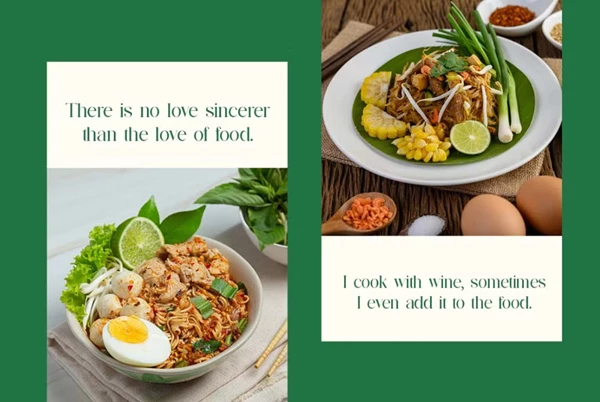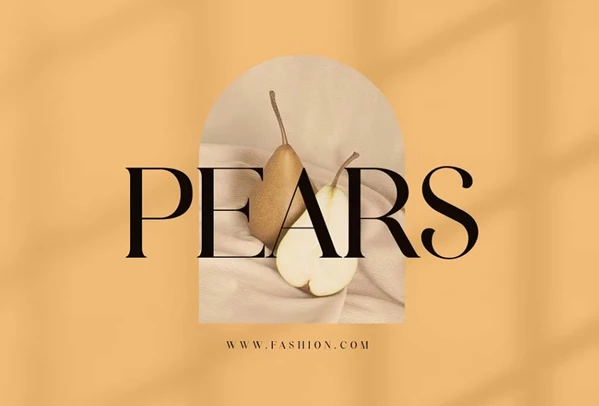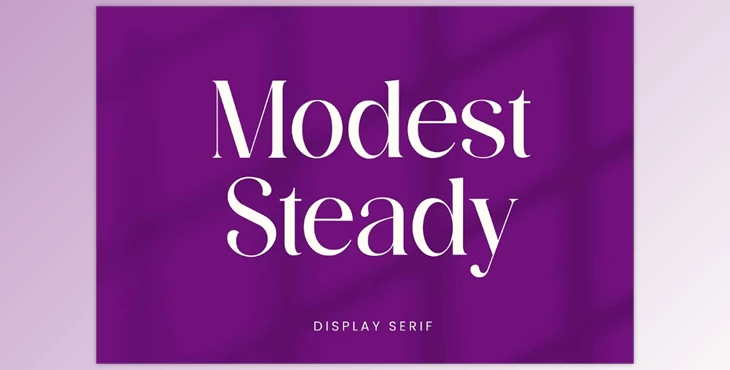
Modest Steady Display Serif Font:
The Modest Steady Display Serif Font is a stylish, elegant typeface that will meet all of your design needs. This modern serif is perfect for signature, stationery, logo, wedding invitation projects - typography for quotes, magazine/book covers, website headers. It can be used for masculine or feminine branding, especially in the fashion or editorial realm.
- Extensive glyph collection
"Modest Steady Display Serif Font" Samples: